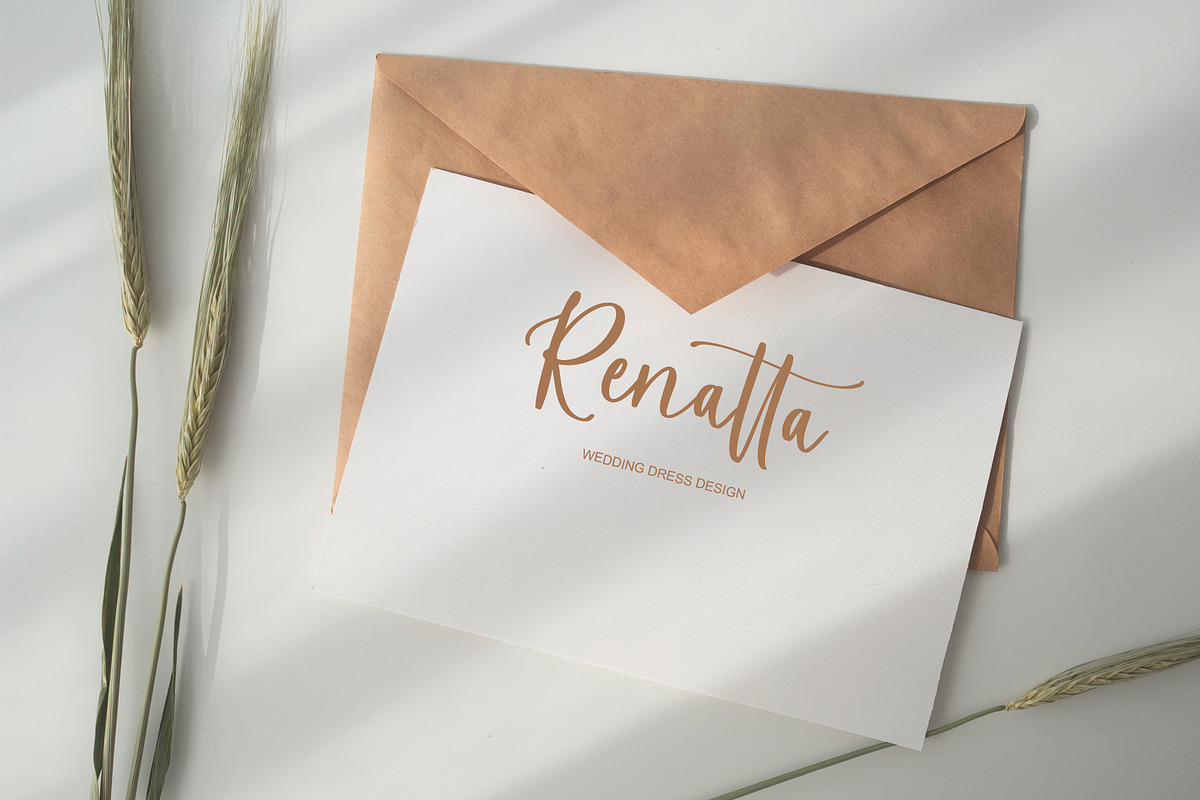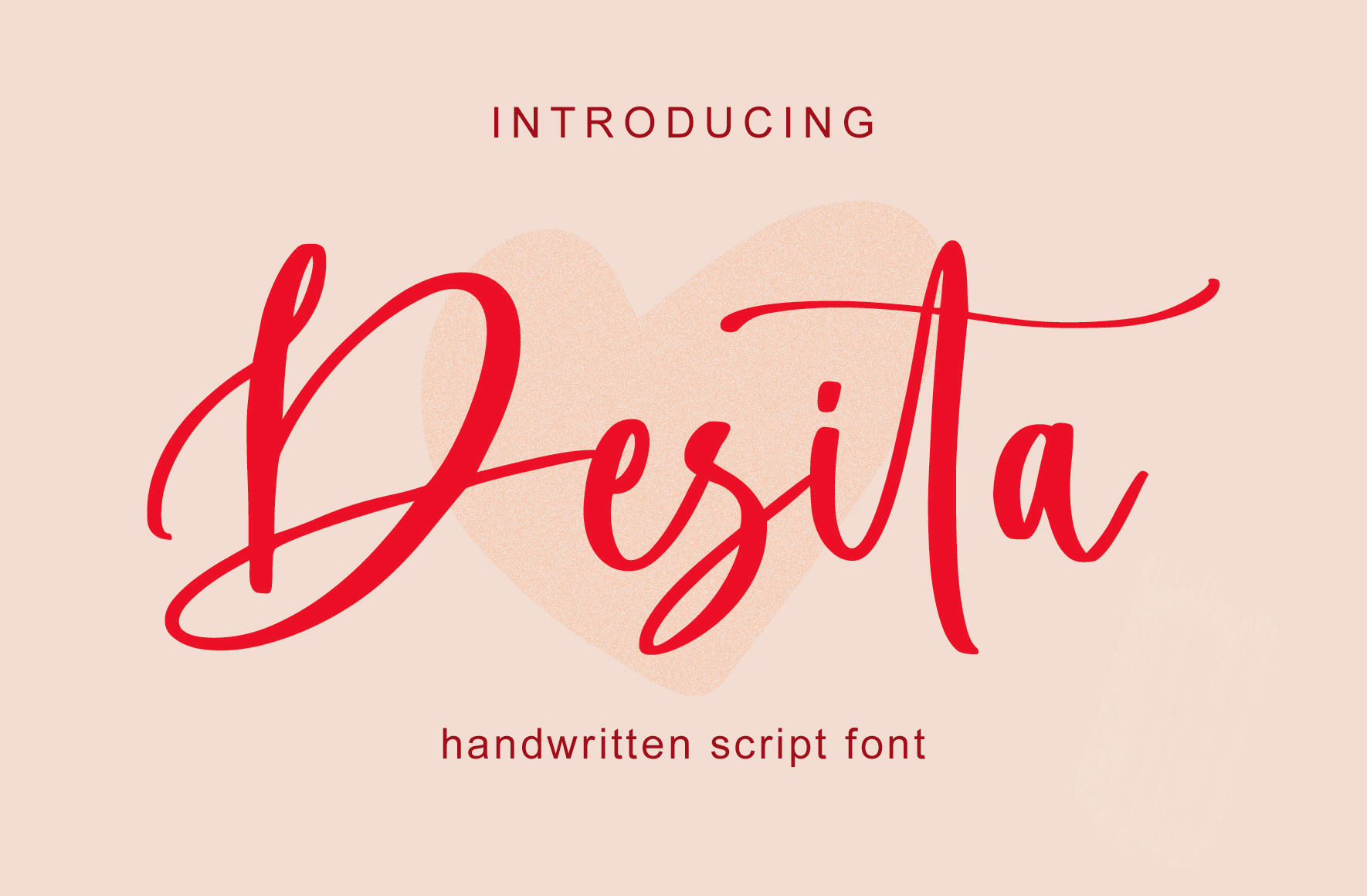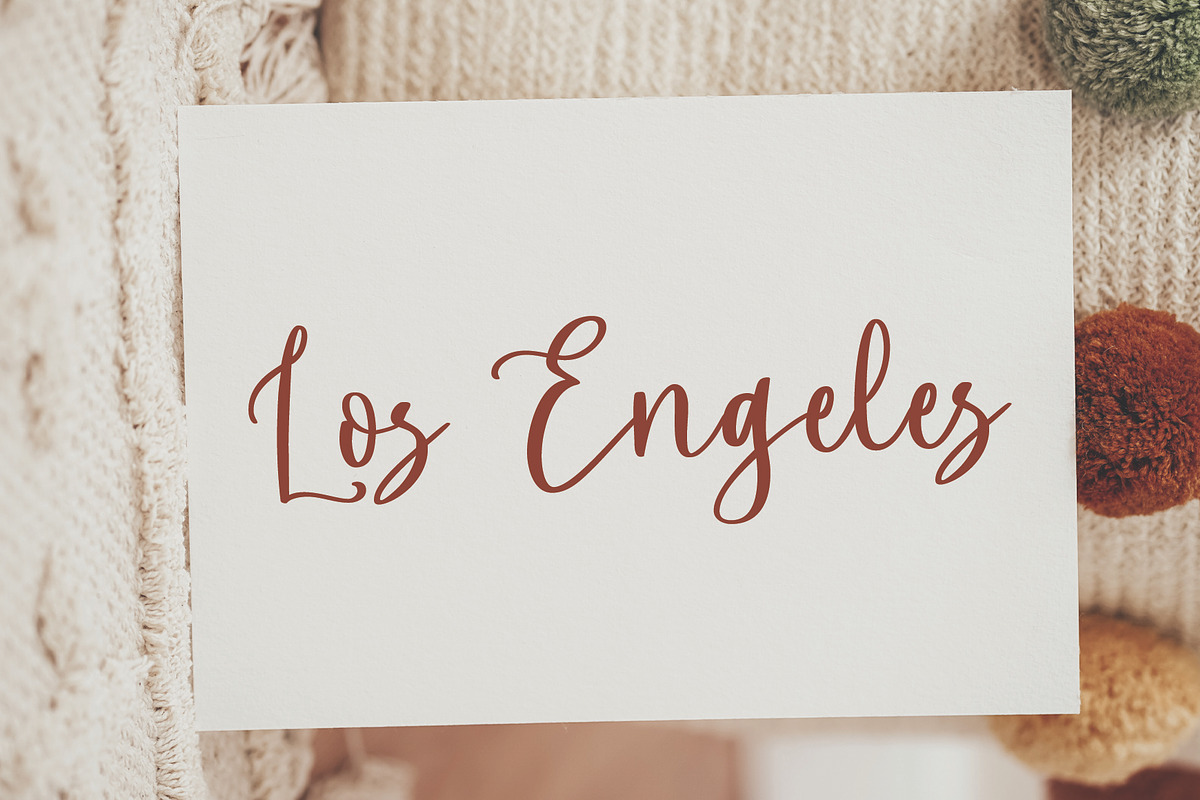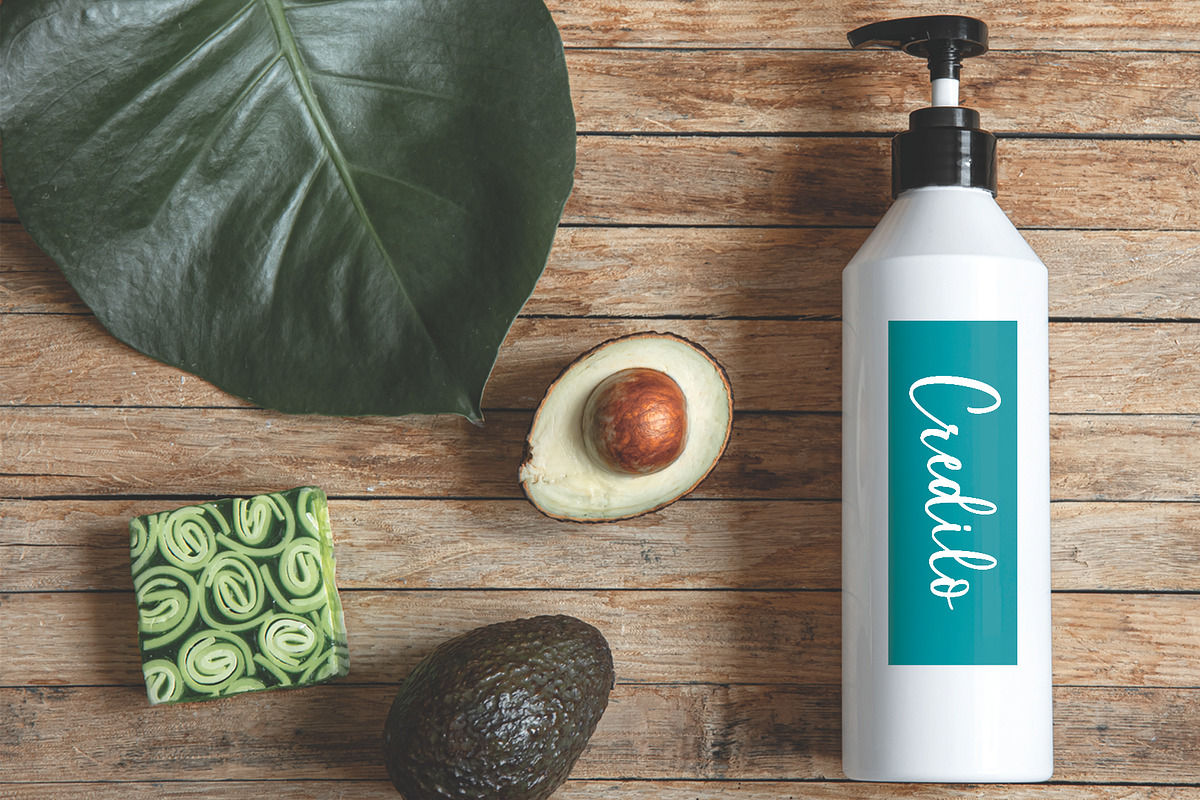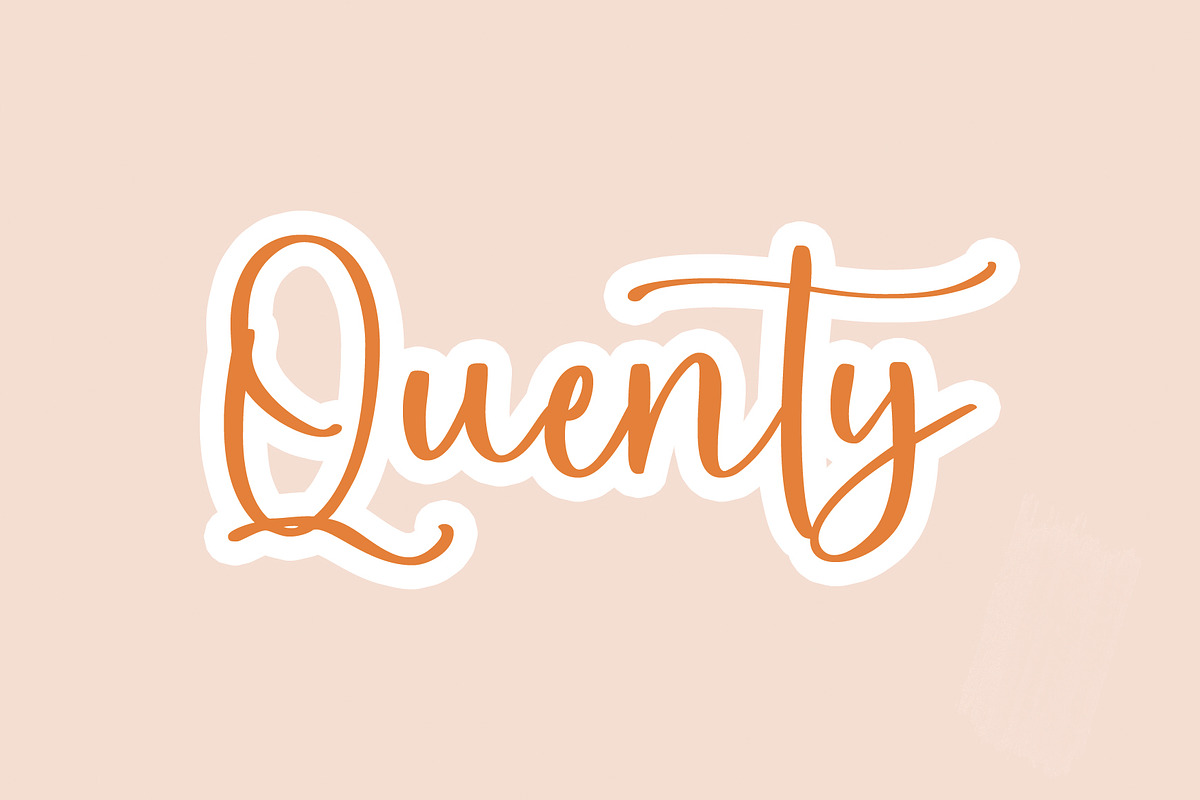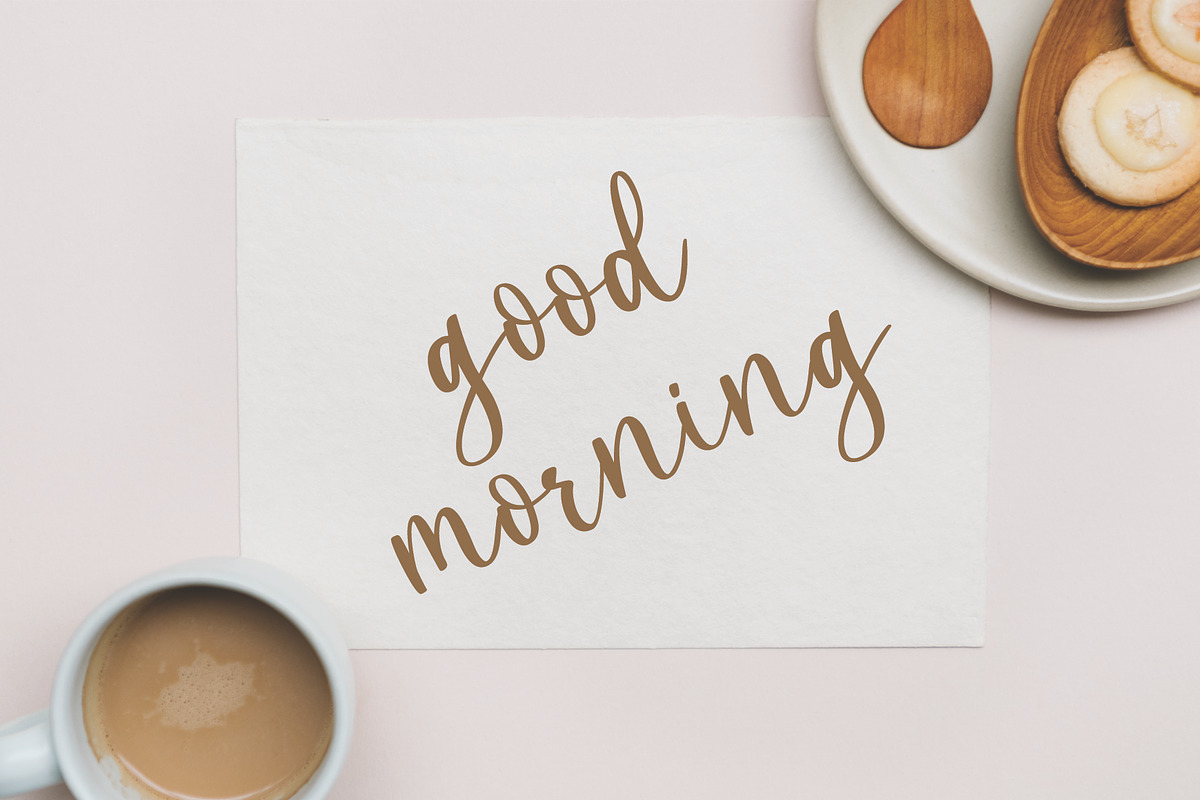
Desita - Handwritten Font
Desita is a slick and fun handwritten font. It has a modern calligraphy look making it perfect for branding and digital design. Use this font for logos, wedding invitation, promotion, product packaging, quote, social media, websites, blogs, magazines, instagram, business cards, branding and more!
This font is modern, simple, but still authentic. You will get full set of lowercase and uppercase letters, numerals and punctuation, multilingual symbols and ligatures.